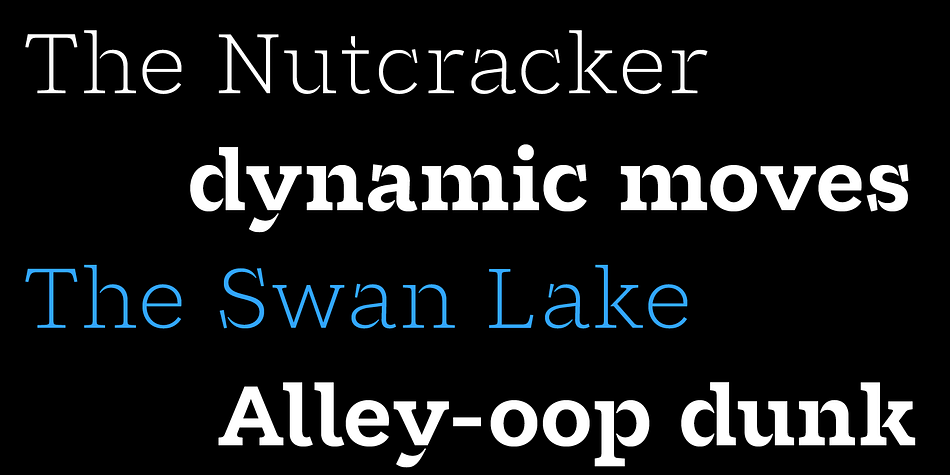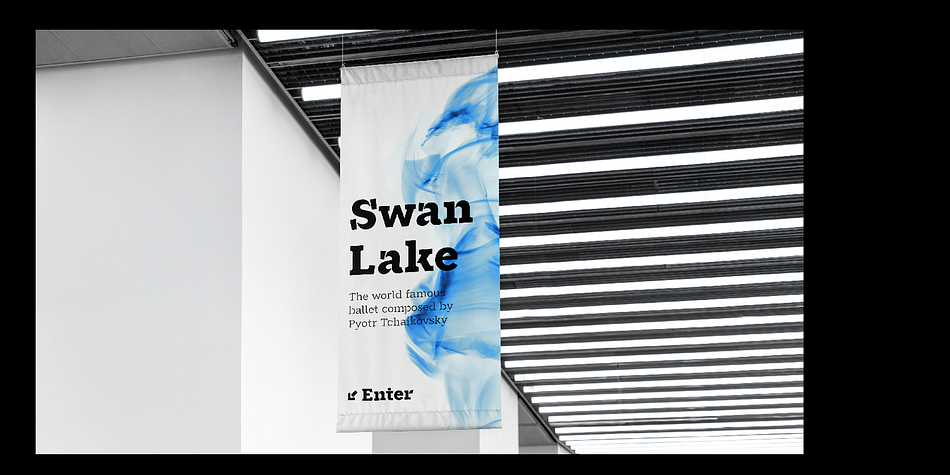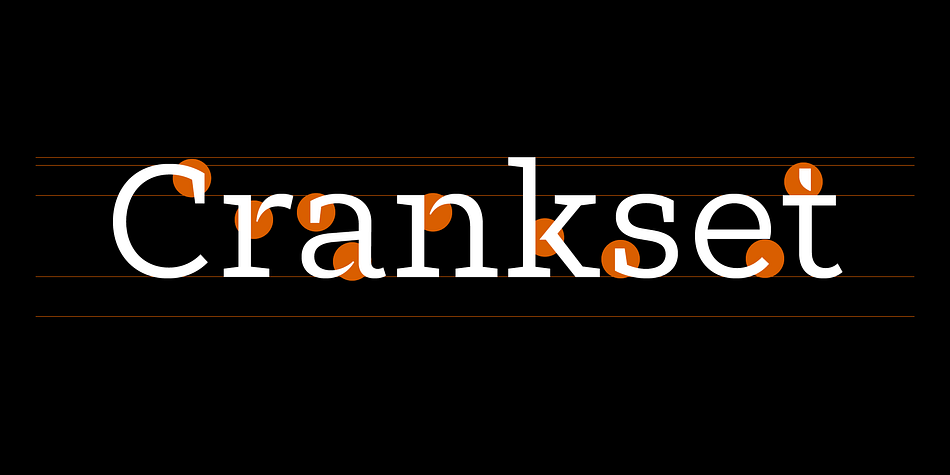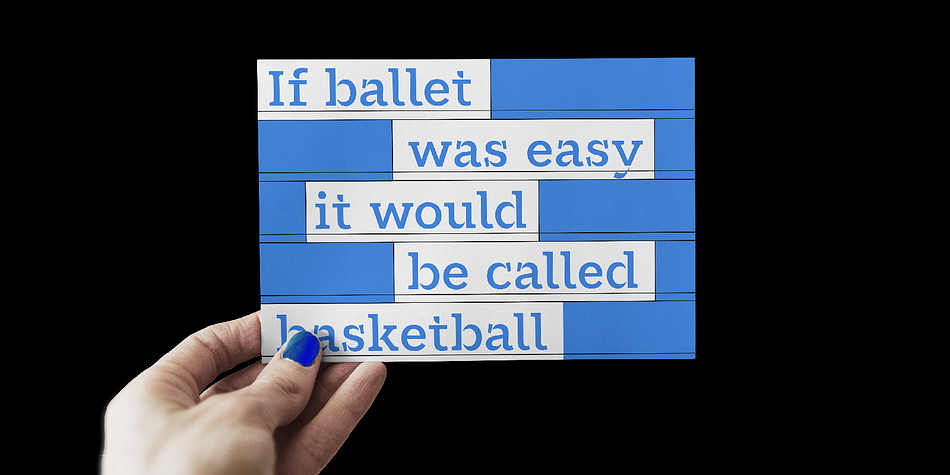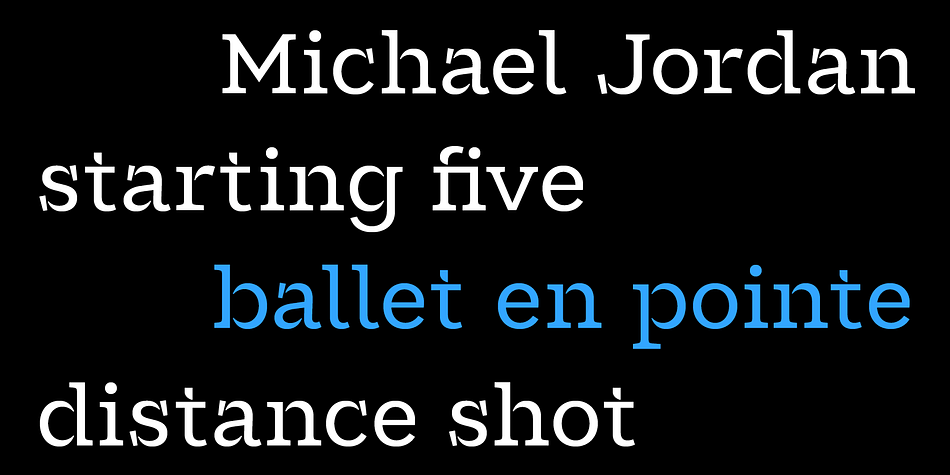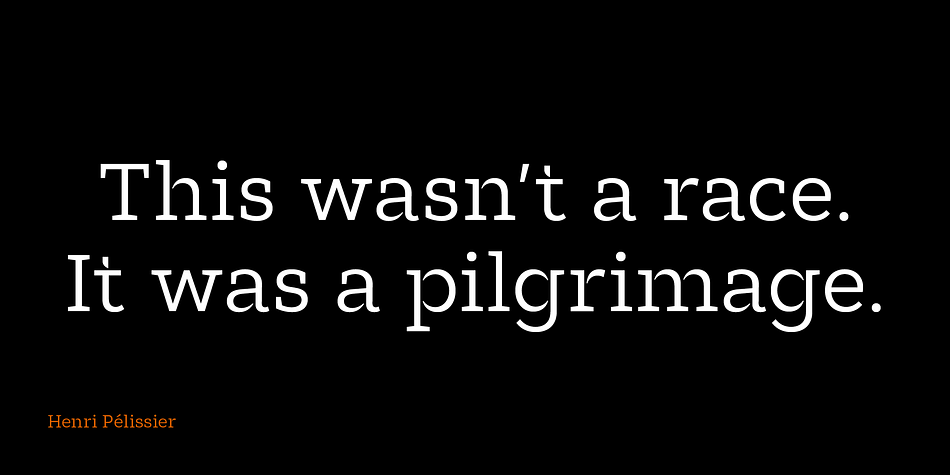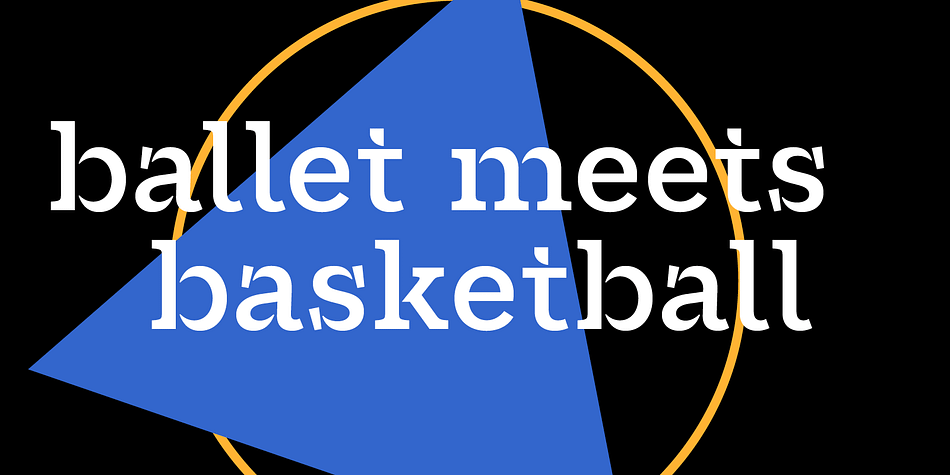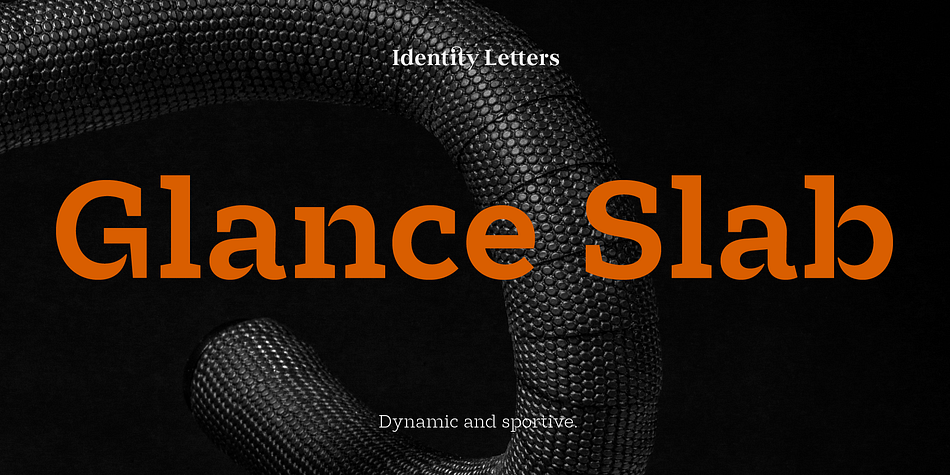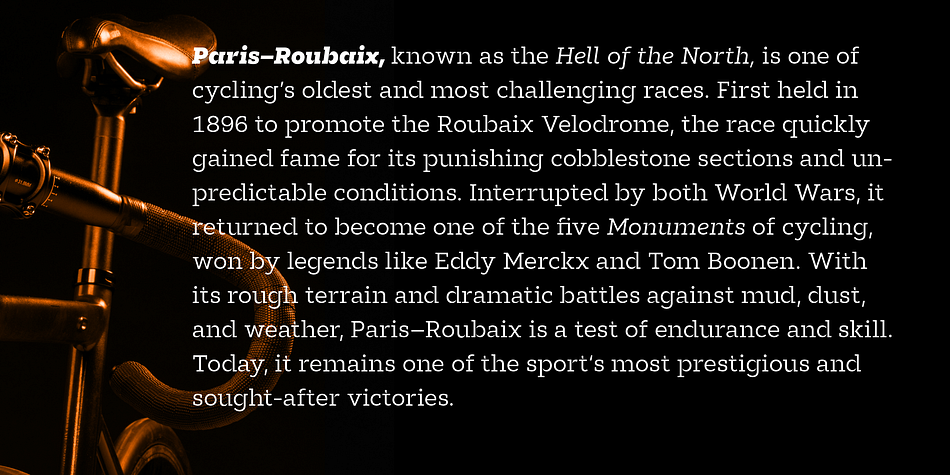
Designed by Moritz Kleinsorge, Glance Slab is a display slab and stencil font family. This typeface has seven styles and was published by Moritz Kleinsorge.
Glance Slab is an experimental design that plays on the tension between connection and detachment. In this typeface, serifs may be detached and some strokes may not connect to their stems. This creates a dynamic impression of balance and movement. The elegance of an ice skater and the determination of a quarterback: Glance Sans has it all.
Where a curve meets a stem and where serifs seem to “hover” near their respective letters, the nonjoining elements create an impression similar to a stencil typeface. But here, the function of the gaps differs from strictly stencil designs: while the gaps provide a “sparkling” effect in Glance Slab that’s clearly visible in large sizes, they take on the role of ink traps when set smaller, making for surprisingly legible body copy.
With its strong visual character, this font family is quickly recognizable, making it perfectly suitable for branding and any large-scale application, such as posters, billboards, and event signage.
Glance Slab consists of seven weights from Thin to Black. Each style has a character set of about 570 glyphs, which includes circled numbers and arrows (positive and negative versions), ligatures, extended language support, and many other features.